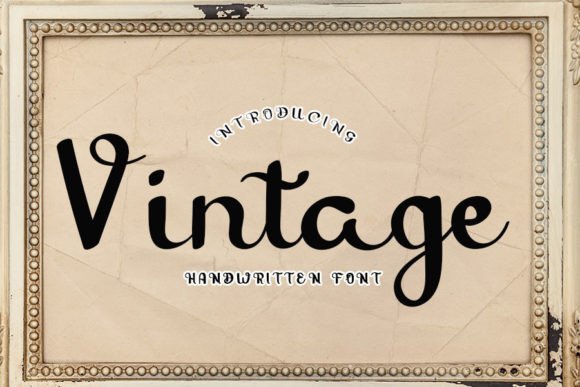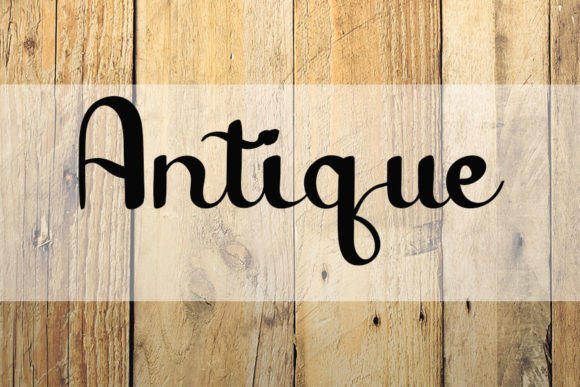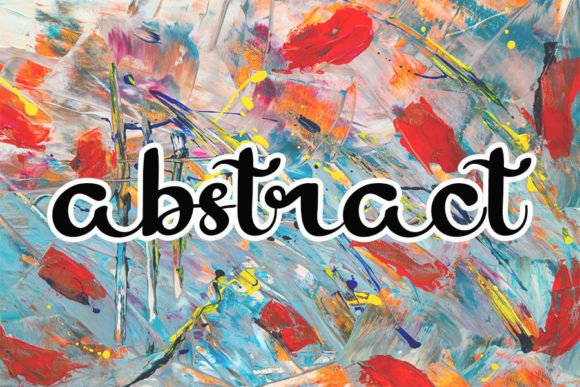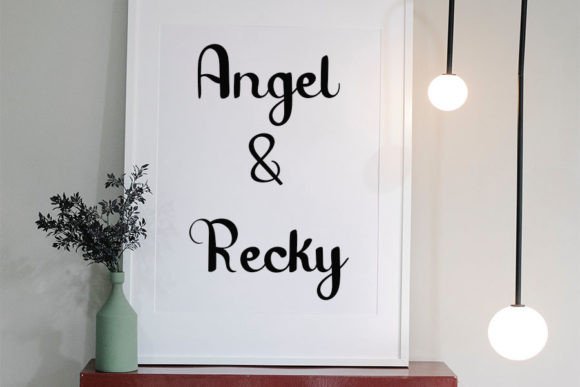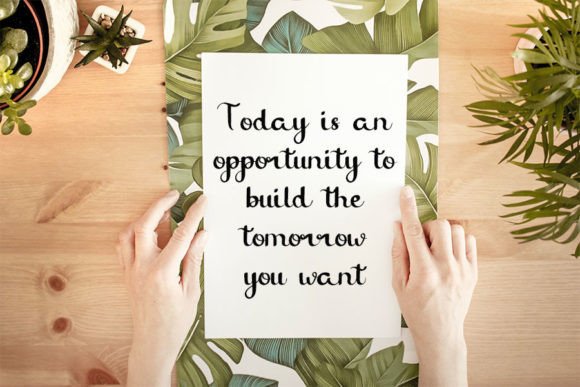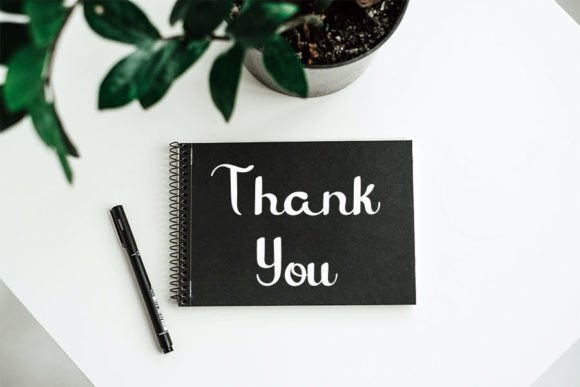
Vintage Font
About Vintage Font
**Vintage Font: Slim and Delicate Handwritten Elegance**
Introducing “Vintage,” a slim and delicate handwritten font that exudes elegance and charm. This font’s dainty and joyful characteristics make it the ideal choice for writing wedding invitations, crafting heartfelt cards, or enhancing any design that seeks a romantic and personalized touch.
**Slim and Delicate Aesthetic:**
Vintage boasts a slim and delicate aesthetic that adds a touch of sophistication to your text. The graceful strokes of this font create an elegant and refined appearance.
**Perfect for Wedding Invitations:**
Elevate your wedding invitations with the romantic touch of Vintage. The slim and delicate nature of the font enhances the overall design, creating invitations that are both timeless and enchanting.
**Craft Heartfelt Cards:**
Design heartfelt cards with Vintage. Whether it’s for birthdays, anniversaries, or special occasions, this font brings a personalized and romantic feel to your card creations.
**Ideal for Romantic Designs:**
Vintage is tailor-made for romantic designs. Its delicate strokes and elegant appearance make it the perfect choice for projects that require a touch of love and romance.
**Personalized and Joyful Touch:**
Bring a personalized and joyful touch to your designs with Vintage. The font’s dainty characteristics add a sense of warmth and intimacy to your text.
**Versatile Application:**
Vintage’s versatility allows it to be applied across a variety of design projects. From wedding materials to personal stationery, this font adapts gracefully to different contexts.
**Create Timeless Invitations:**
Design invitations that stand the test of time with Vintage. The font’s timeless elegance ensures that your invitations remain classic and beautiful for years to come.
**Enhance Special Occasion Designs:**
Whether it’s a formal event or an intimate gathering, Vintage enhances the design of special occasions. Its delicate charm adds a touch of sophistication to your event materials.
**Craft with Romantic Precision:**
Use Vintage to craft designs with romantic precision. The font’s careful detailing and slim strokes contribute to an overall aesthetic that speaks of love and tenderness.
**Joyful and Elegant Typography:**
Infuse your designs with joyful and elegant typography using Vintage. Let this font be the choice that brings a sense of delight to your creative projects.
Vintage is more than just a font; it’s an elegant tool that enhances the romantic and personalized aspects of your designs. Whether you’re working on wedding invitations, cards, or any project that requires a delicate touch, let Vintage be the font that adds a timeless and enchanting quality to your creations.